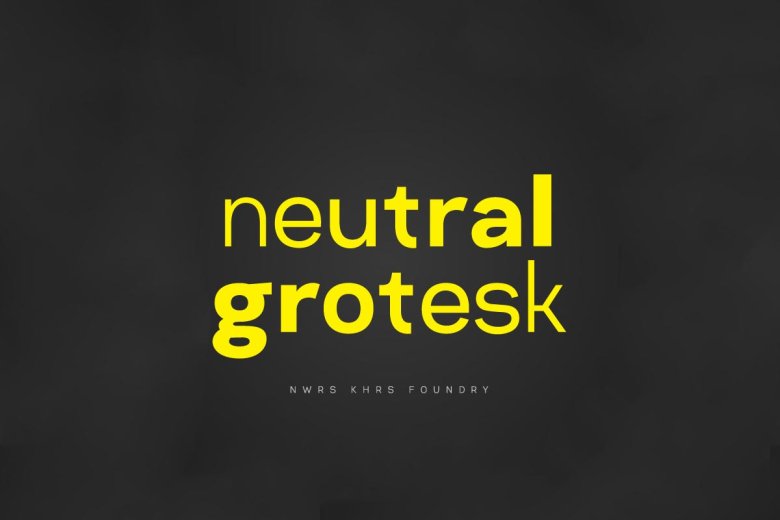
Neutral Grotesk Font Family
Introducing Neutral Grotesk Font Family! Neutral Grotesk designed by Nawras Moneer. Neutral Grotesk is a flawless font branching from the Original Grotesque category characterized by its 351 standard glyphs structures, combined geometric rules with grotesque type theories. Neutral Grotesk has 7 weights & their italics. And it supports many languages, starts from Western European until the Eastern & Cyrillic.